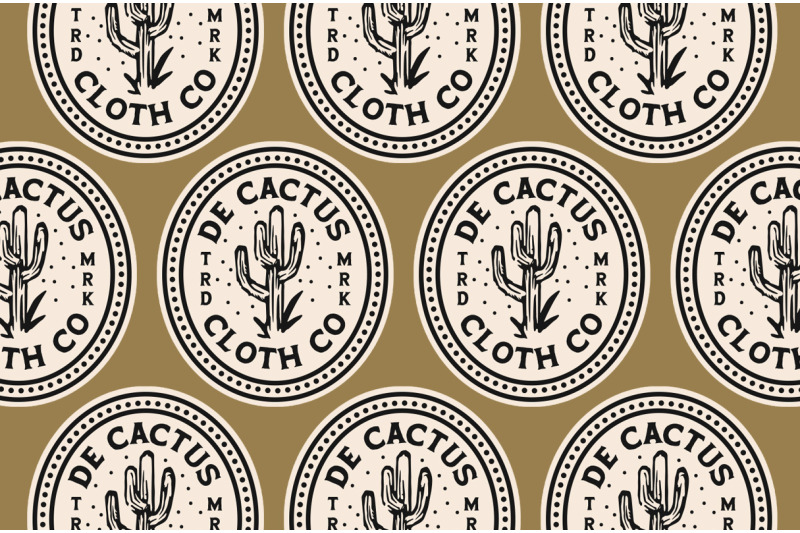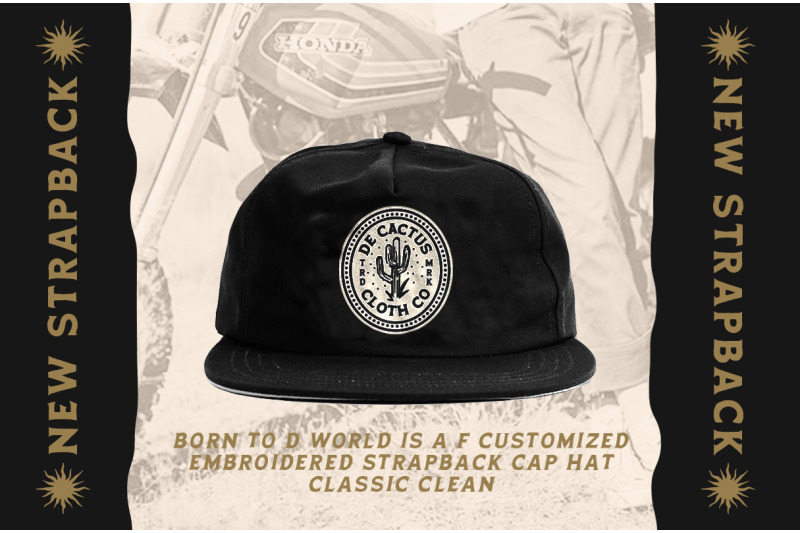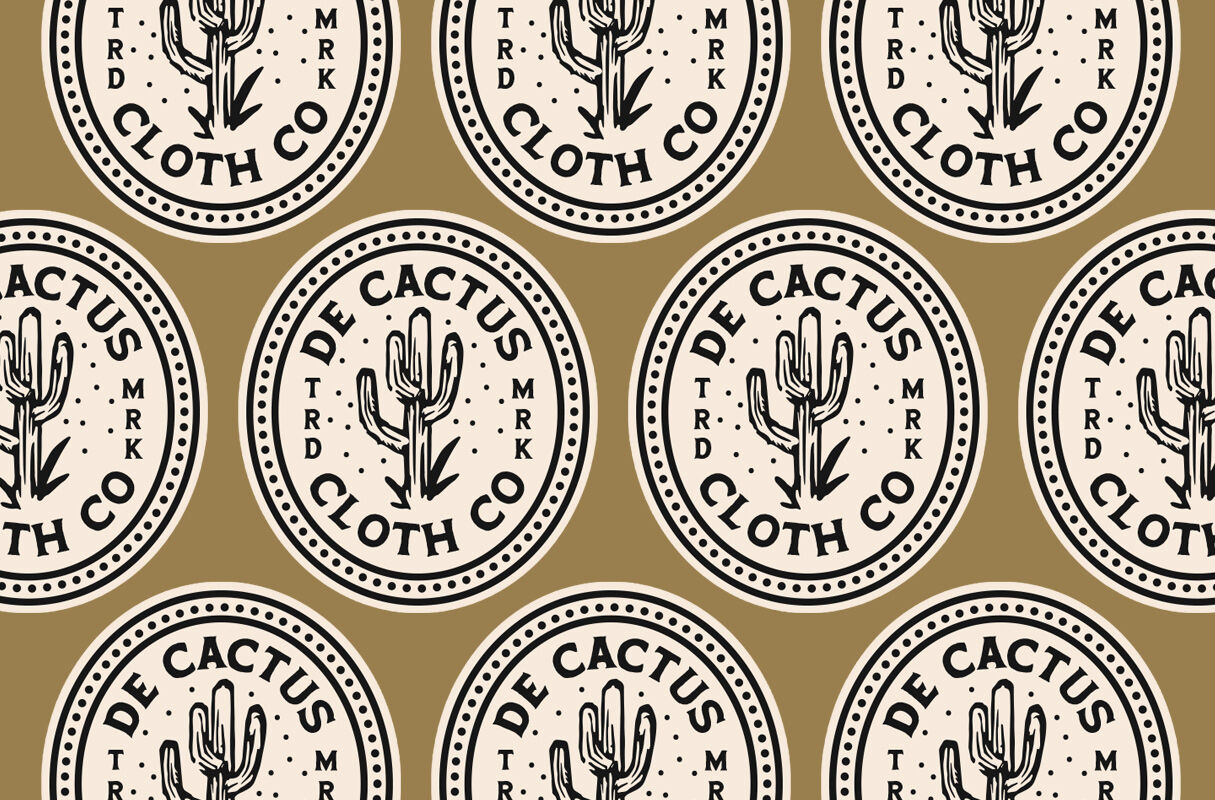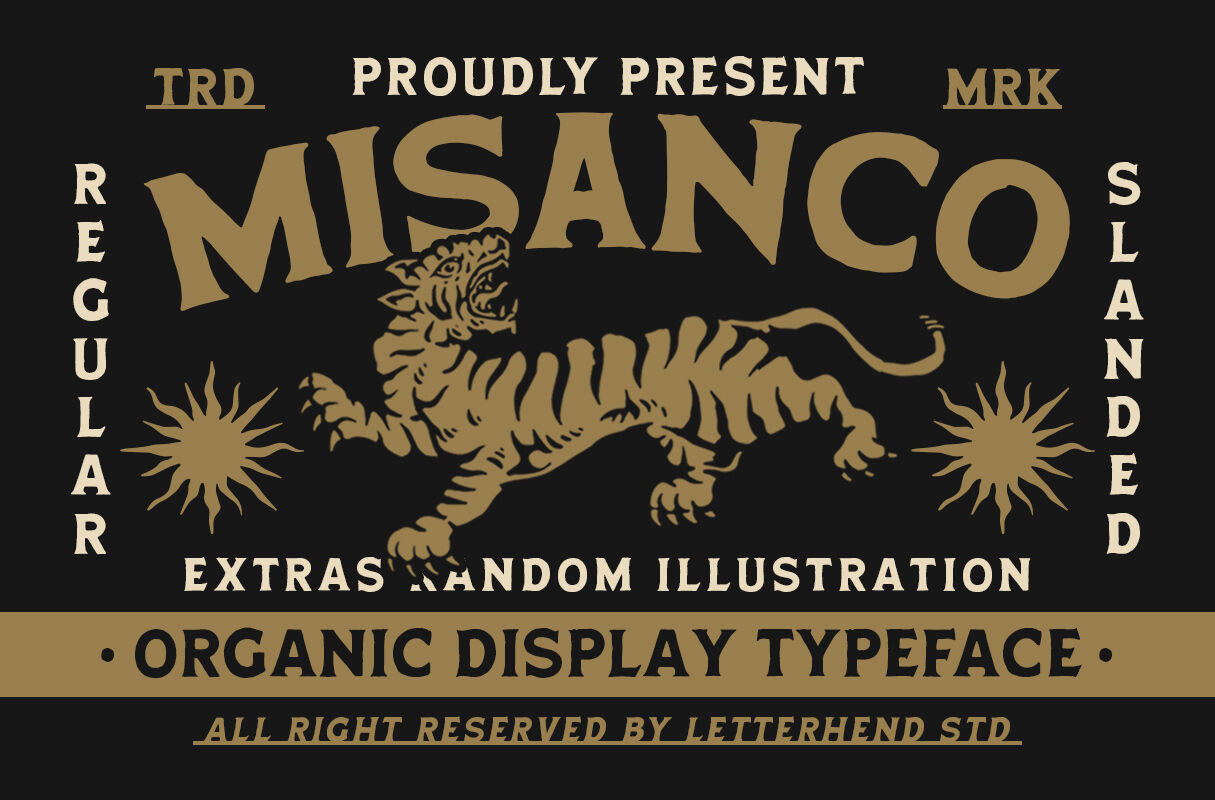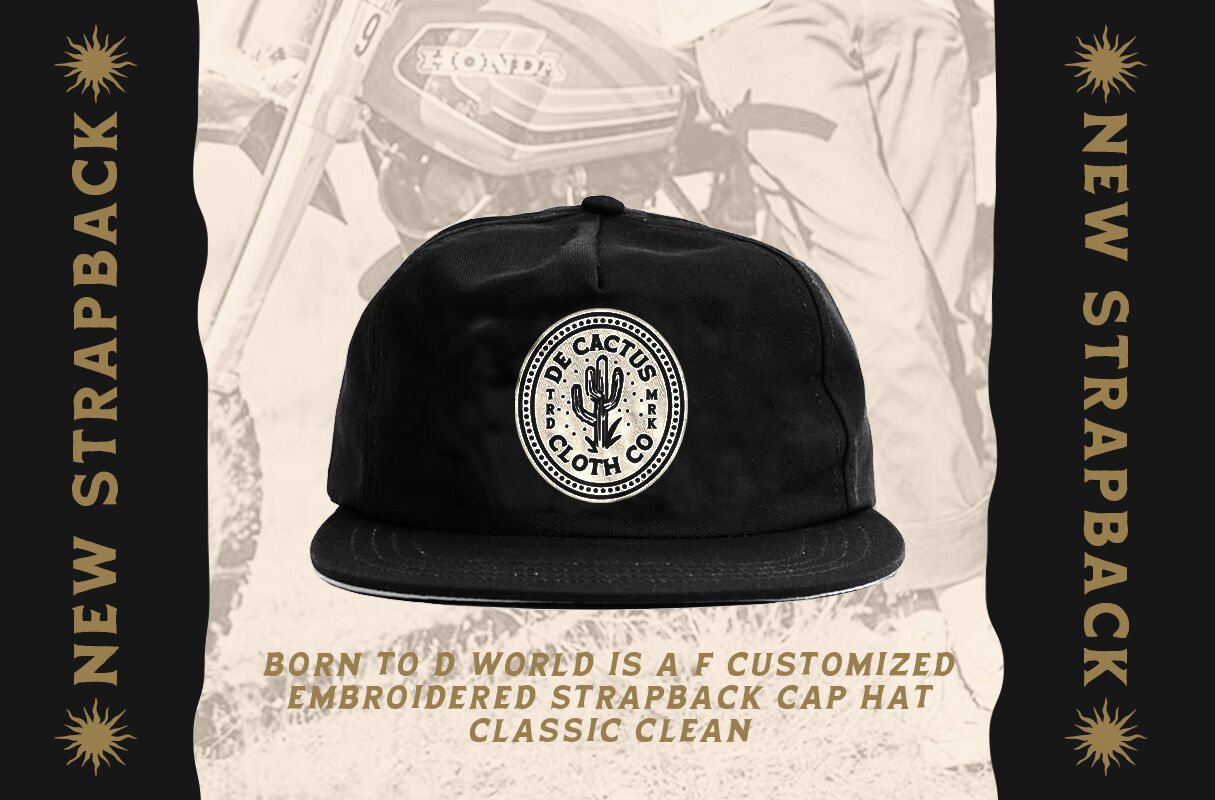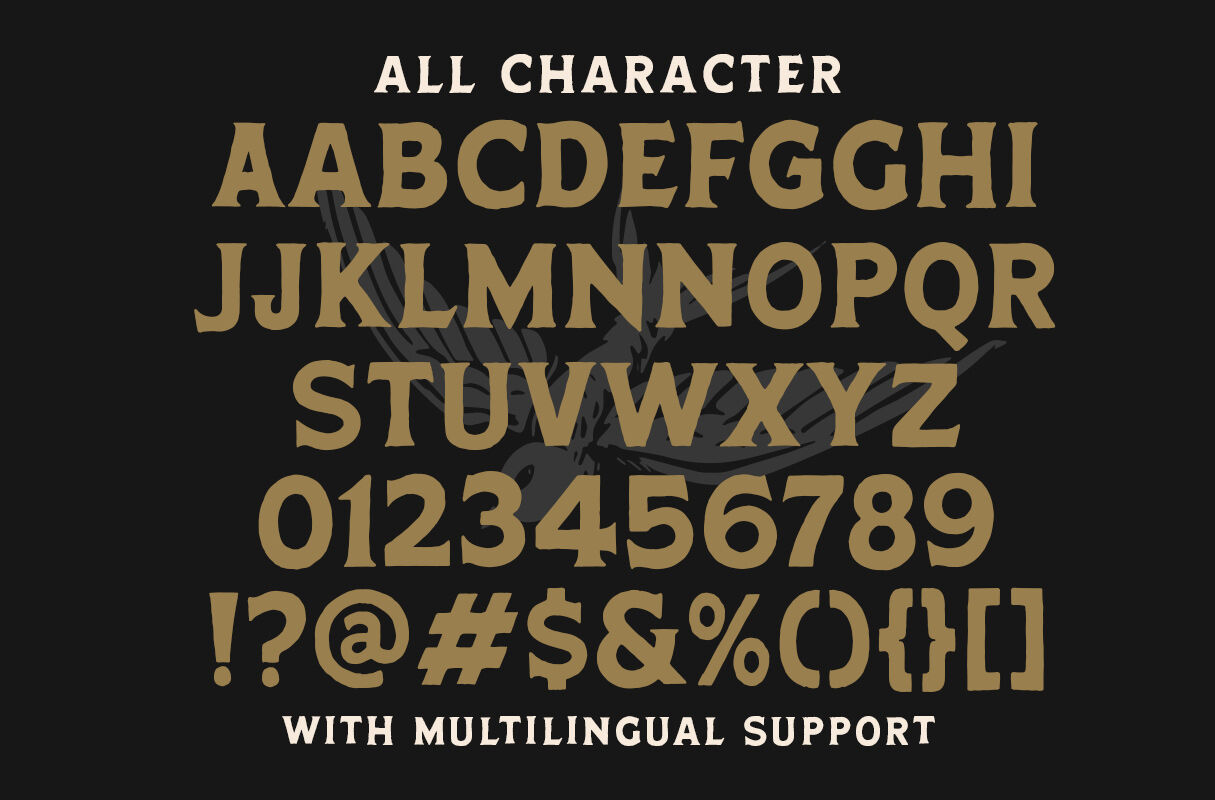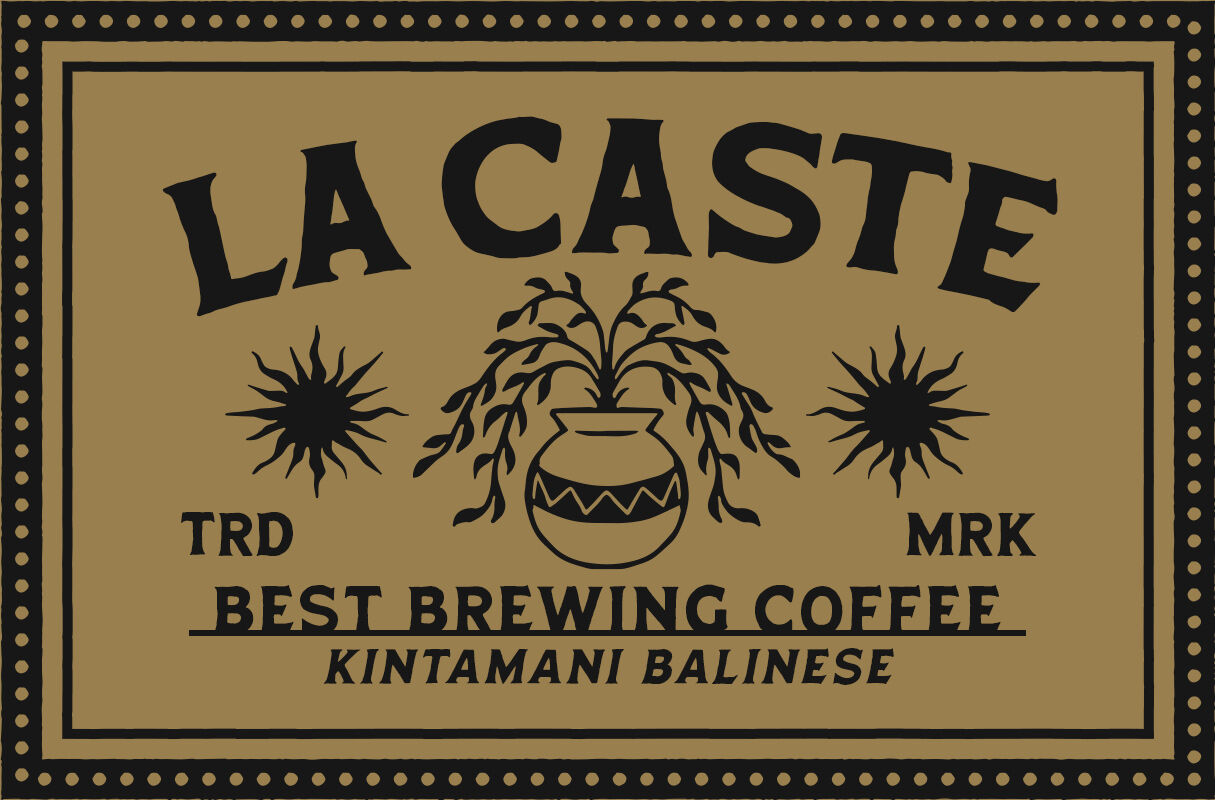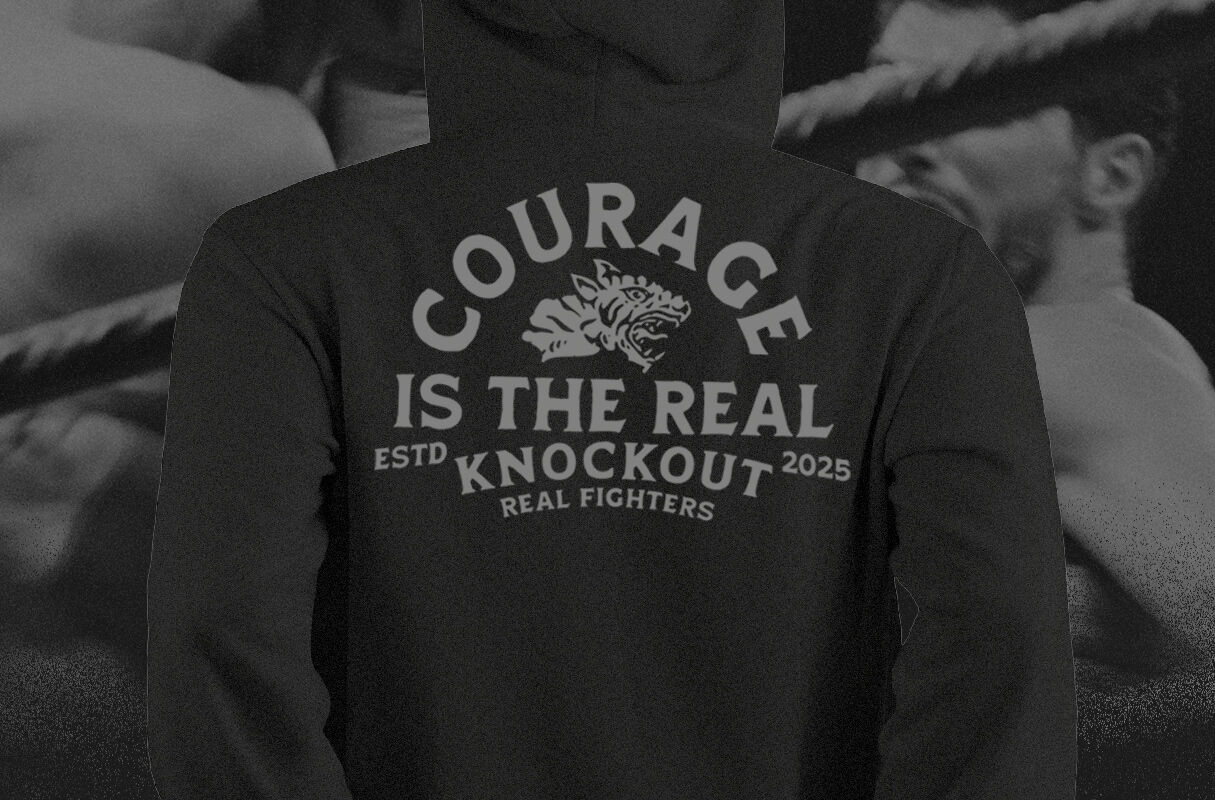
Misanco Organic Display Font
Misanco is an organic display typeface with a bold yet artistic personality. It carries a strong vintage-inspired style with expressive, handcrafted letterforms that feel raw and adventurous. Available in Regular and Slanted versions. Its unique shapes evoke a masculine, rugged vibe with a touch of retro charm, making it perfect for creative projects that want to stand out while keeping an authentic handcrafted feel. Features : OTF, TTF & Bonus Illustration Uppercase & lowercase Numbers and punctuation Alternates/Ligatures Multilingual Support PUA encoded We highly recommend using a program that supports OpenType features and Glyphs panels like many of Adobe apps and Corel Draw, so you can see and access all Glyph variations. PLEASE READ THIS: To use alternate charactter/swash you have to use opentype. For accessing opentype feature, kindly check this link letterhend.com/tutorials/using-opentype-feature-in-any-software/ For business collaboration inquiries, please contact us at letterhend@gmail.com. For feedback and any other question, please contact our support team at admin@letterhend.com. We'll happy to help you!